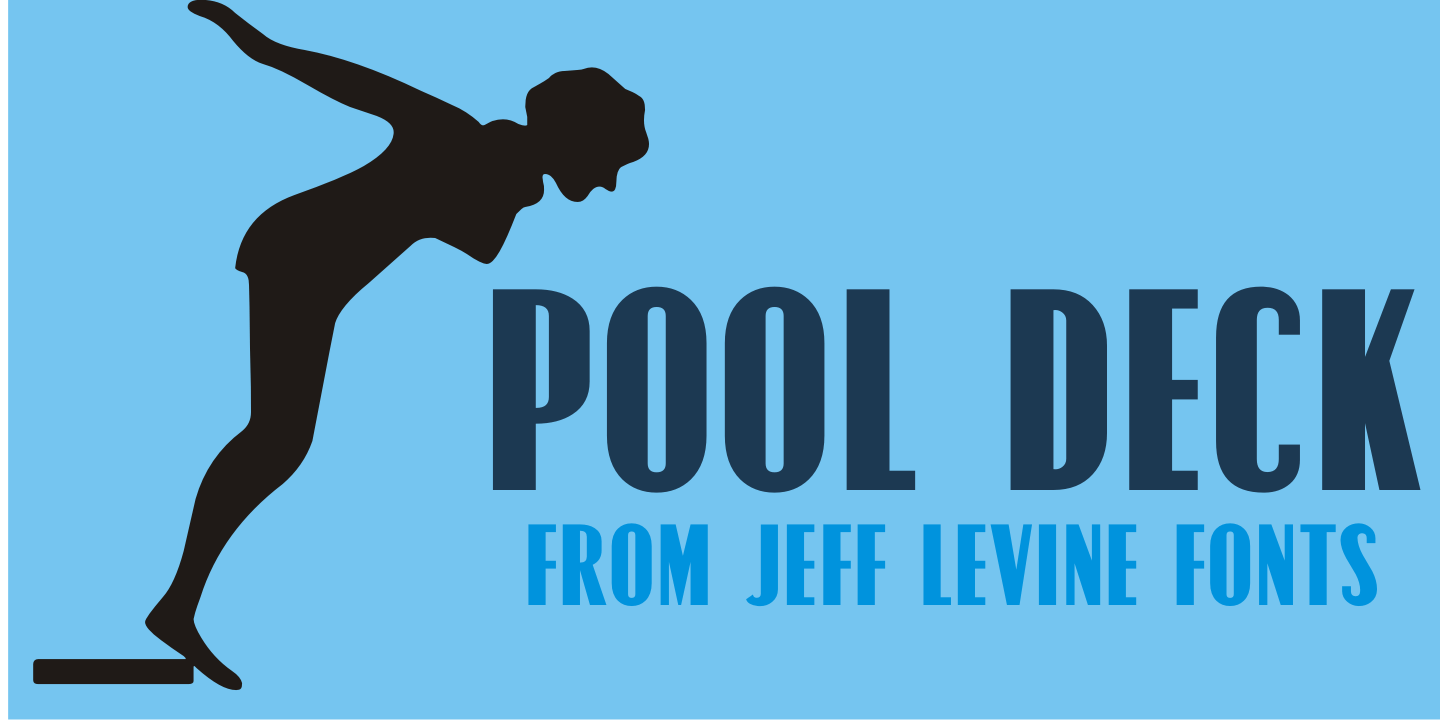
Pool Deck
There's nothing too fancy about Pool Deck JNL, which is based on an older typeface design. It's your basic sans serif condensed type style with a few unconventional letter shapes.
Pool Deck JNL Regular by Jeff Levine Fonts